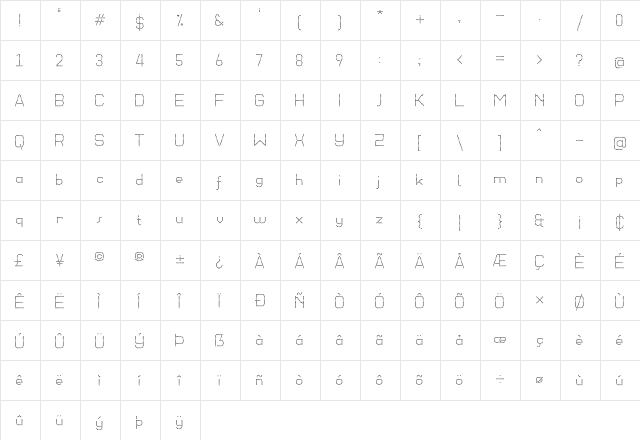
Styl=0 Regular
| Designer | jmarquez |
Design Context for Styl=0 Typeface
Styl=0 offers clean, dependable letterforms without strong stylistic allegiance, making it a practical choice for designers who need flexibility.